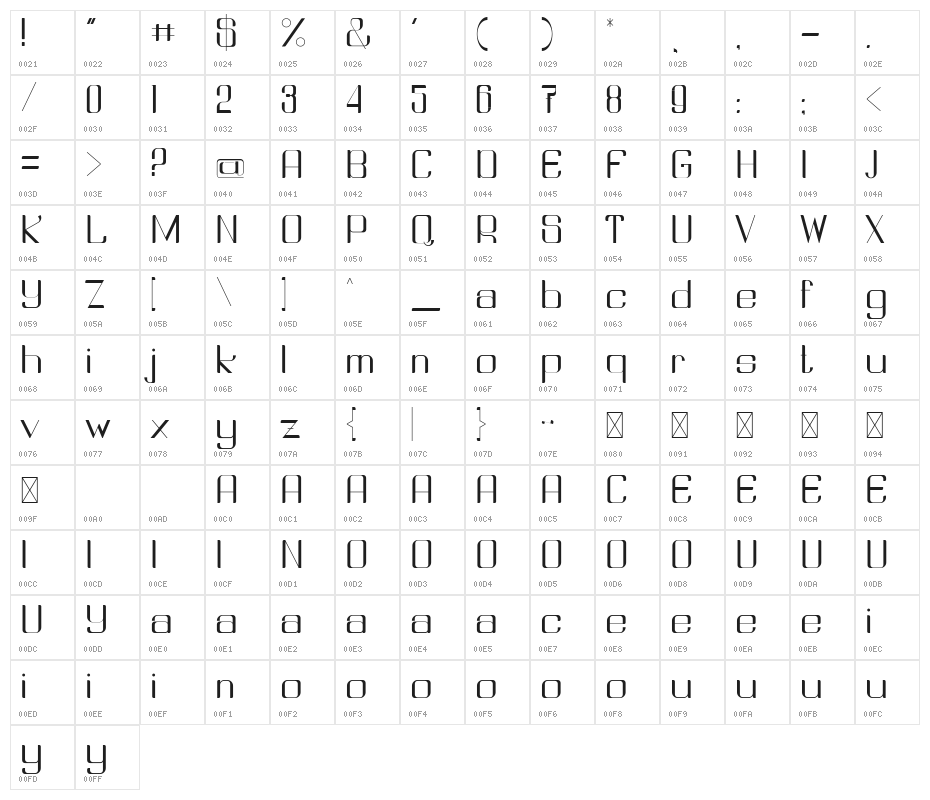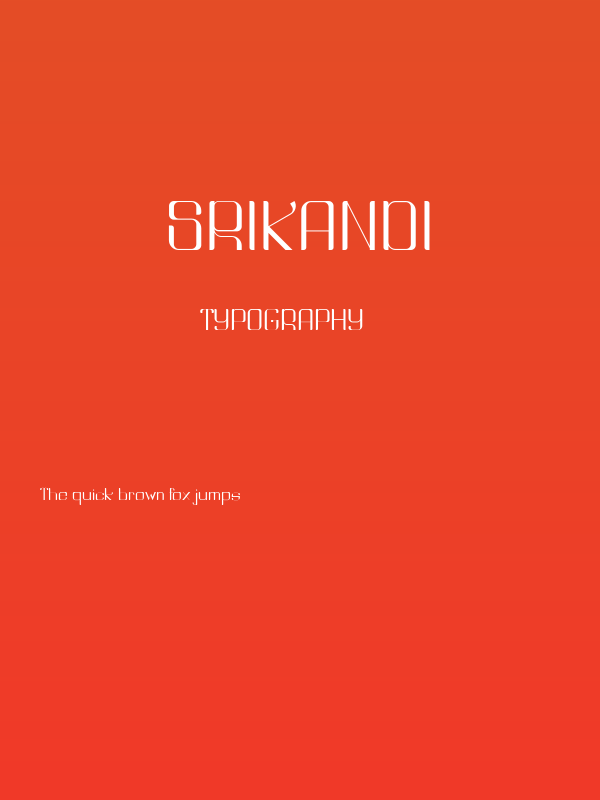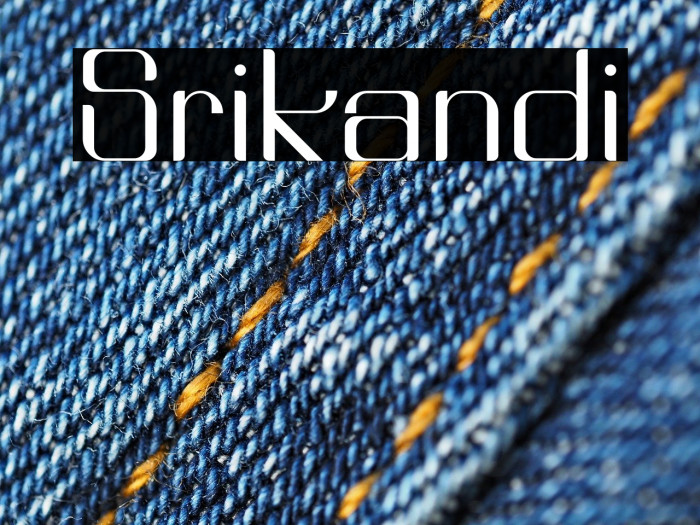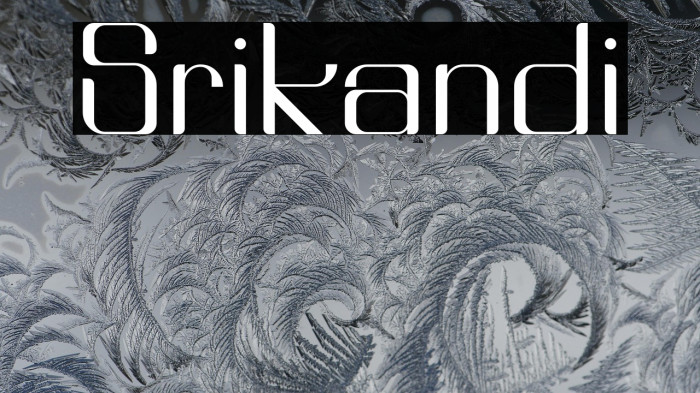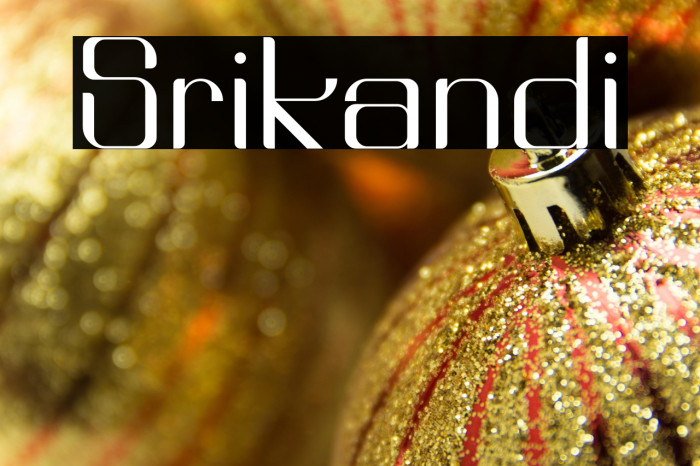
Srikandi Font
Srikandi Description
This font features a modern and sleek design with a geometric structure. The characters are constructed with a blend of straight lines and subtle curves, creating a futuristic and sophisticated appearance. The uppercase letters are uniform in height, while the lowercase letters maintain a consistent baseline, enhancing readability. The numerals are distinct and align well with the overall style, making them suitable for various applications. The special characters are designed to complement the main alphabet, maintaining the font's cohesive look. This font's unique style makes it ideal for projects that require a contemporary and stylish touch.
| Use Case | Headlines, Logos, Digital media |
| Proposed Projects | Ideal for branding, advertising, digital media, and editorial design projects. |